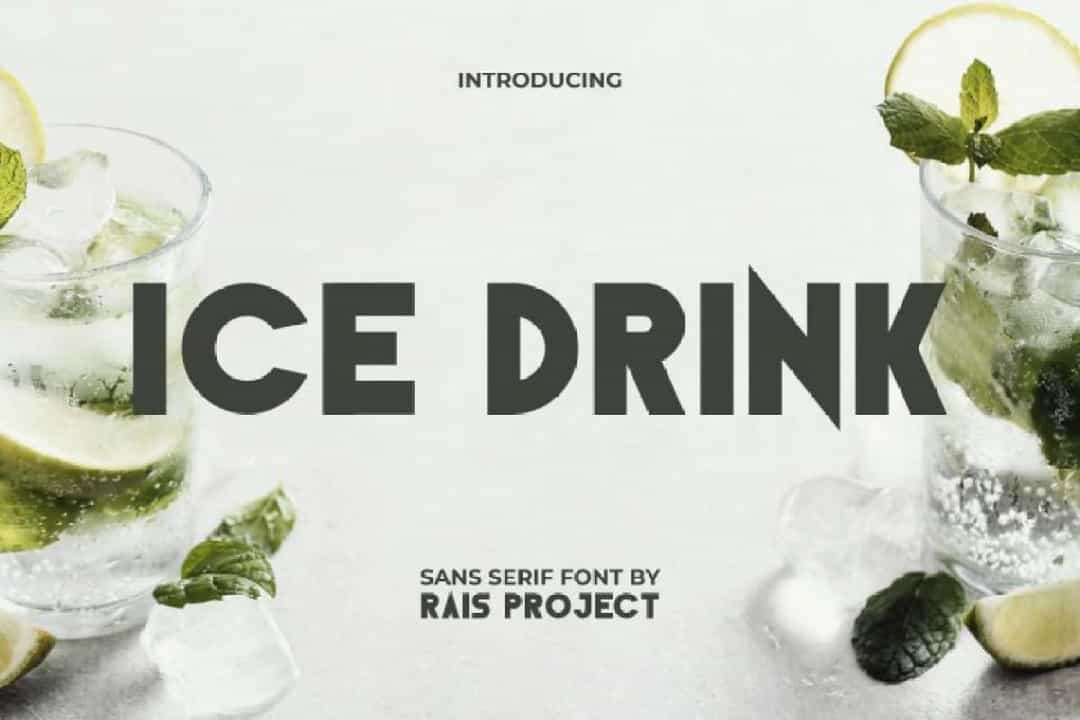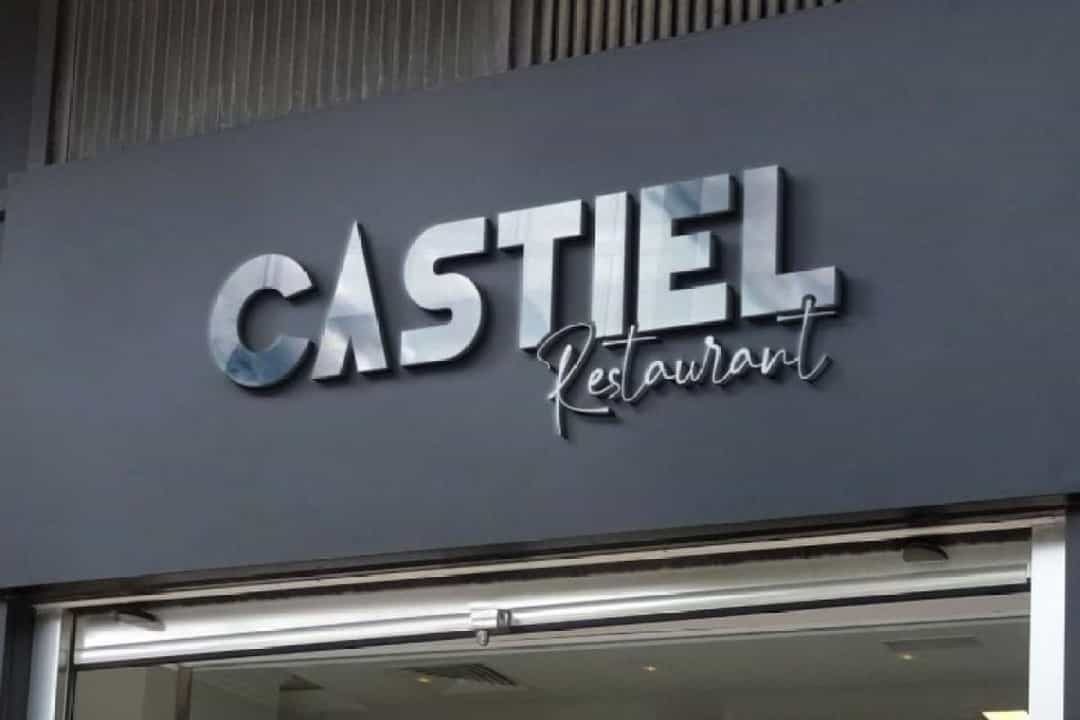
Ice Drinkis an attractive and fashionable sans serif font designed with bold strokes for use in modern designs. Its large font size will highlight any words you include into your design and ensure they can easily be identified for various uses, such as brand logo, corporate card cover design, customized label designs, invitation menus, magazines packaging posters signage web designs – among many others!